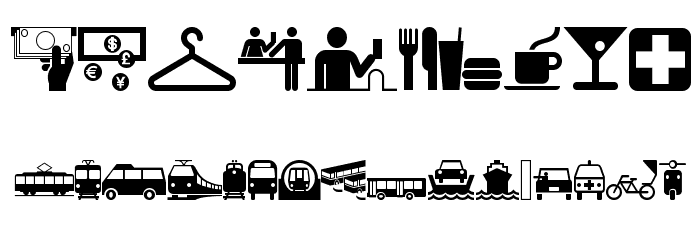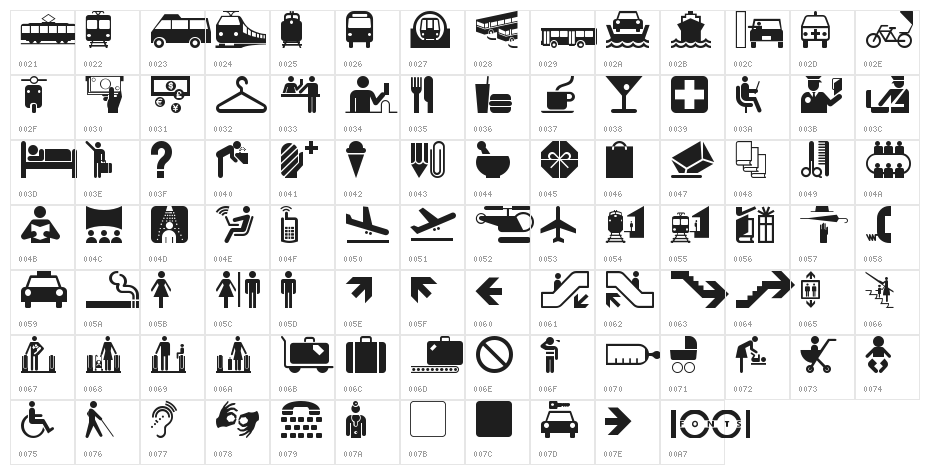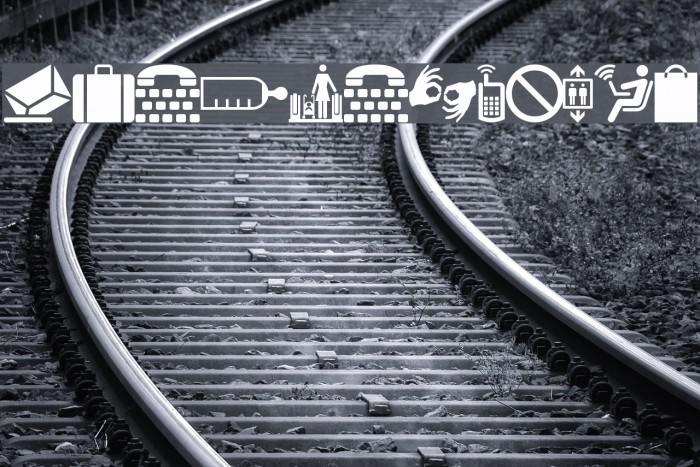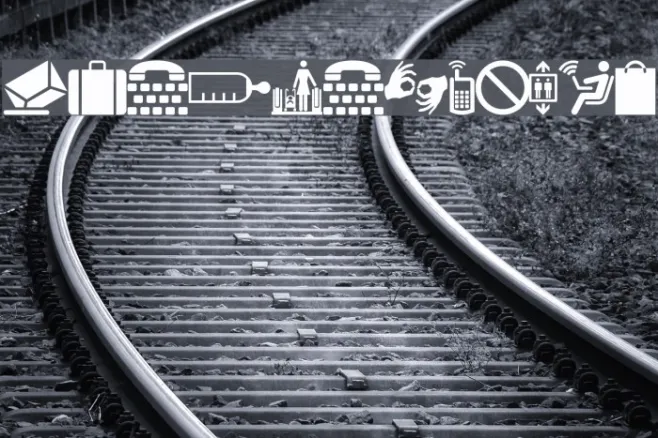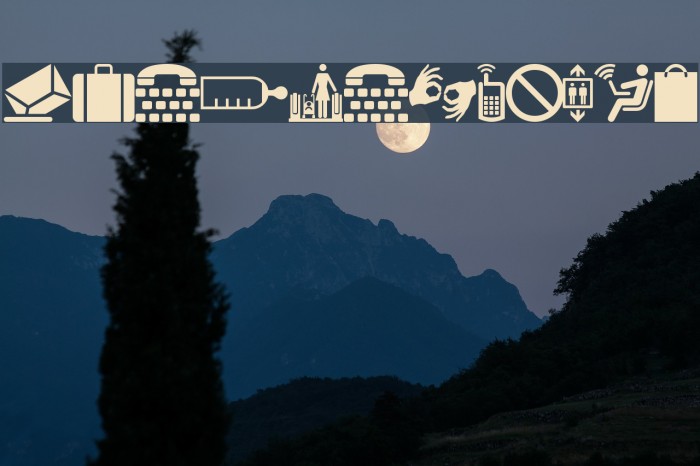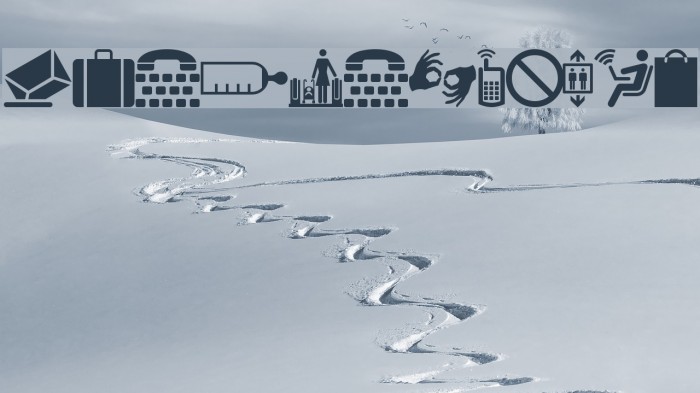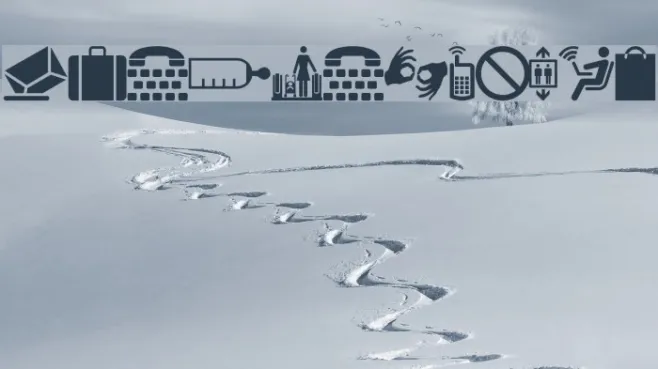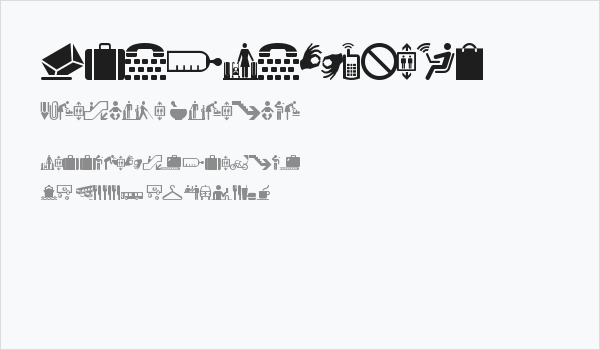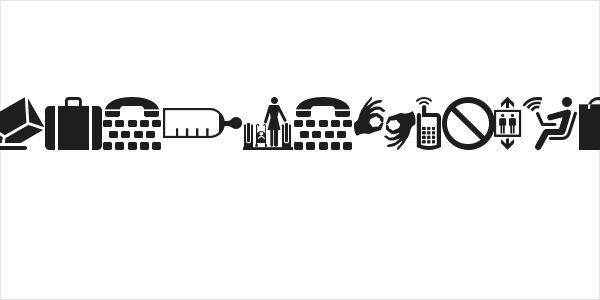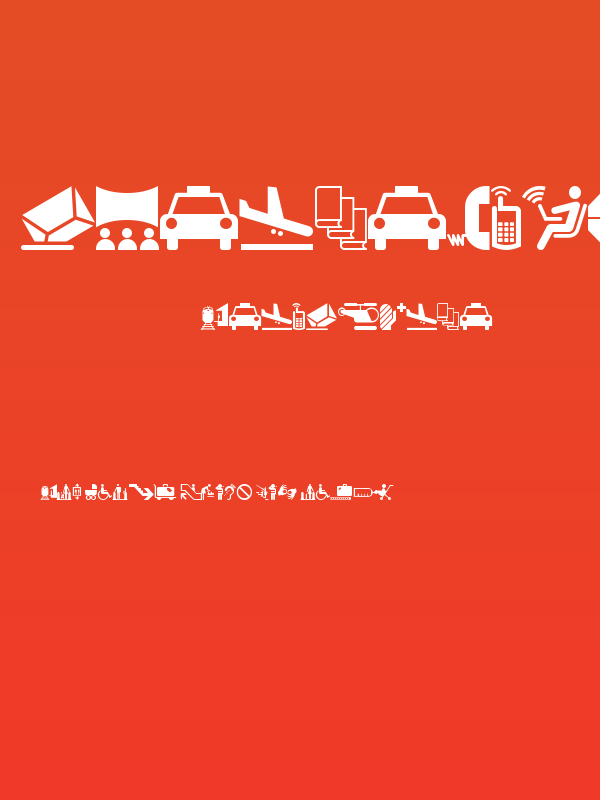
GlyphyxOneNF Font
GlyphyxOneNF Description
A pictogram-based dingbat font featuring bold, high-contrast icons representing transportation, public services, accessibility, commerce, and hospitality. The glyphs are solid, geometric, and highly legible, designed for universal visual communication.
| Overall Style | Modern, Functional, Pictographic |
| Use Case | Signage, Icons, Infographics, Public Information |
| Proposed Projects | Wayfinding systems, airport or transit signage, infographics, instructional materials, public information displays. |